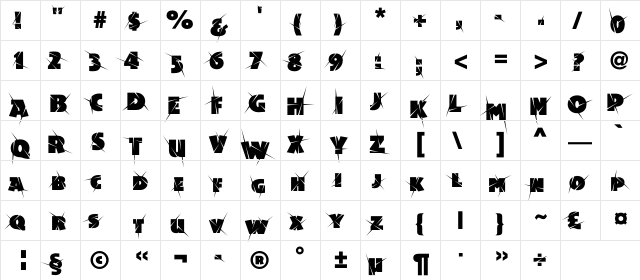
AcsiomaSuperShockC Regular
Design Context for AcsiomaSuperShockC Typeface
AcsiomaSuperShockC is a composed and adaptable typeface that performs quietly and consistently across a wide range of design contexts.